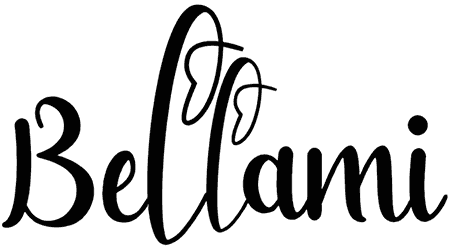
Bellami Font
If you are looking for a lovely script font to please your special one with a lot of heart swashes, you’ve come to the right place. Here is our cute Valentine’s font, Bellami, which comes with a full set of characters and heart-shaped tails at the end of letters.
This font meets all your expectations for a romantic concept. It’s a good choice for book covers, love letters, wedding invitations, customized gift boxes, and other Valentine’s Day ideas.